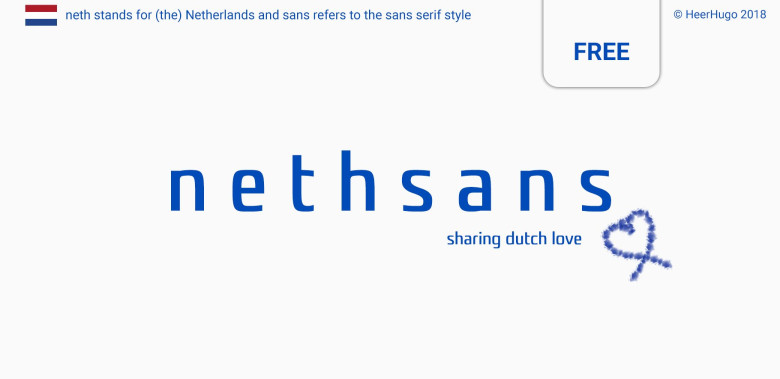
Nethsans Typeface – Entirely Free
The ‘nethsans’ typeface is an entirely free typeface both for personal and commercial use. To break down the name: ‘neth’ stands for (the) Netherlands and sans refers to the sans serif style. It has a rather futuristic style. Although the typeface has a small character set, it took a very very long time to produce it. It all started as a fun experiment. Around 40% of it is generated with an AI algorithm. Designing/writing the software took a tremendous amount of time and yet it’s still not really feasible to generate font families all by itself. I have to drag/copy them into Fontlab, fix the optical balance, adjust, modify, fill in settings etc. etc. It might evolve to a stage where it can generate highly sophisticated font families all by itself. And hopefully it will become faster too. It’s very slow at the moment.
The ‘upgraded’ version of nethsans will be (hopefully) released soon. That will be entirely free as well.